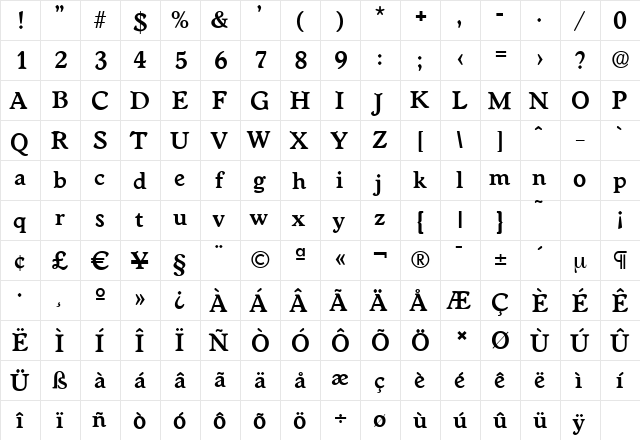
WorcesterSerial Bold
Design Context for WorcesterSerial Typeface
WorcesterSerial takes a measured approach to typography — its balanced proportions and neutral character make it a reliable workhorse for both digital and print work. The heavy weight commands attention and anchors typographic hierarchies.